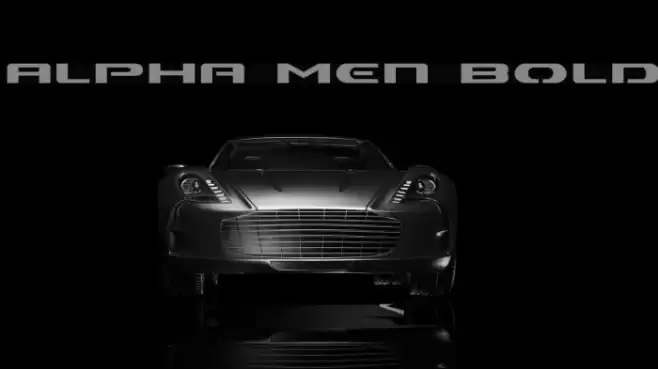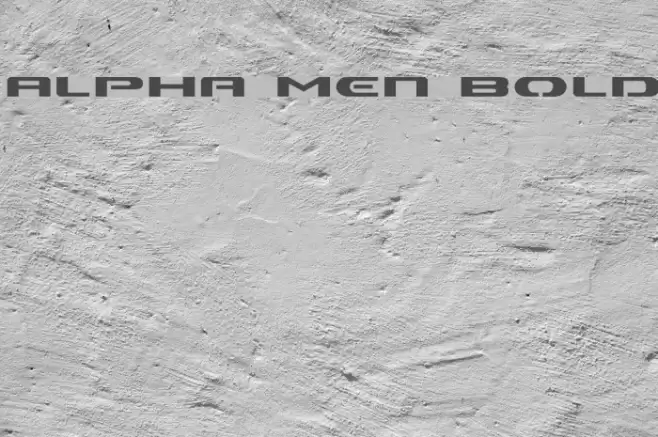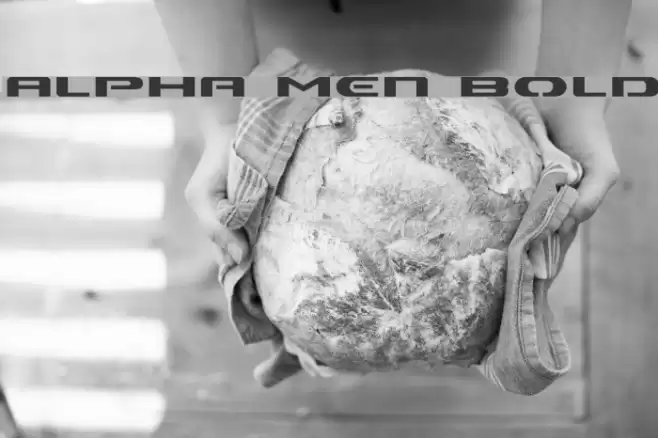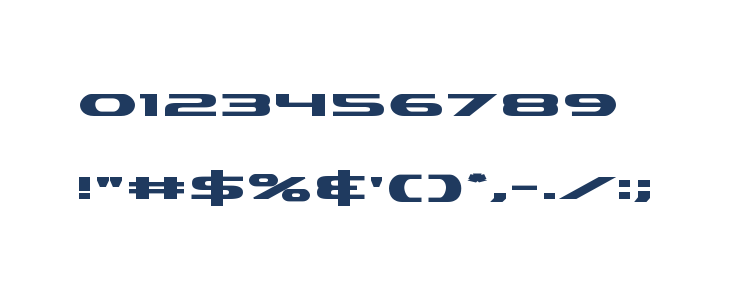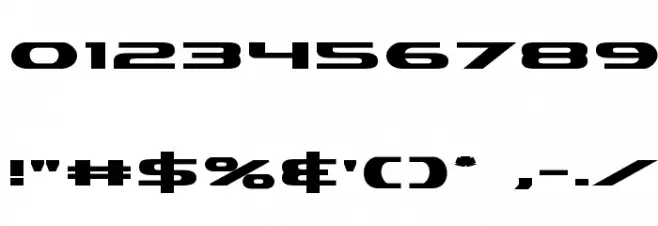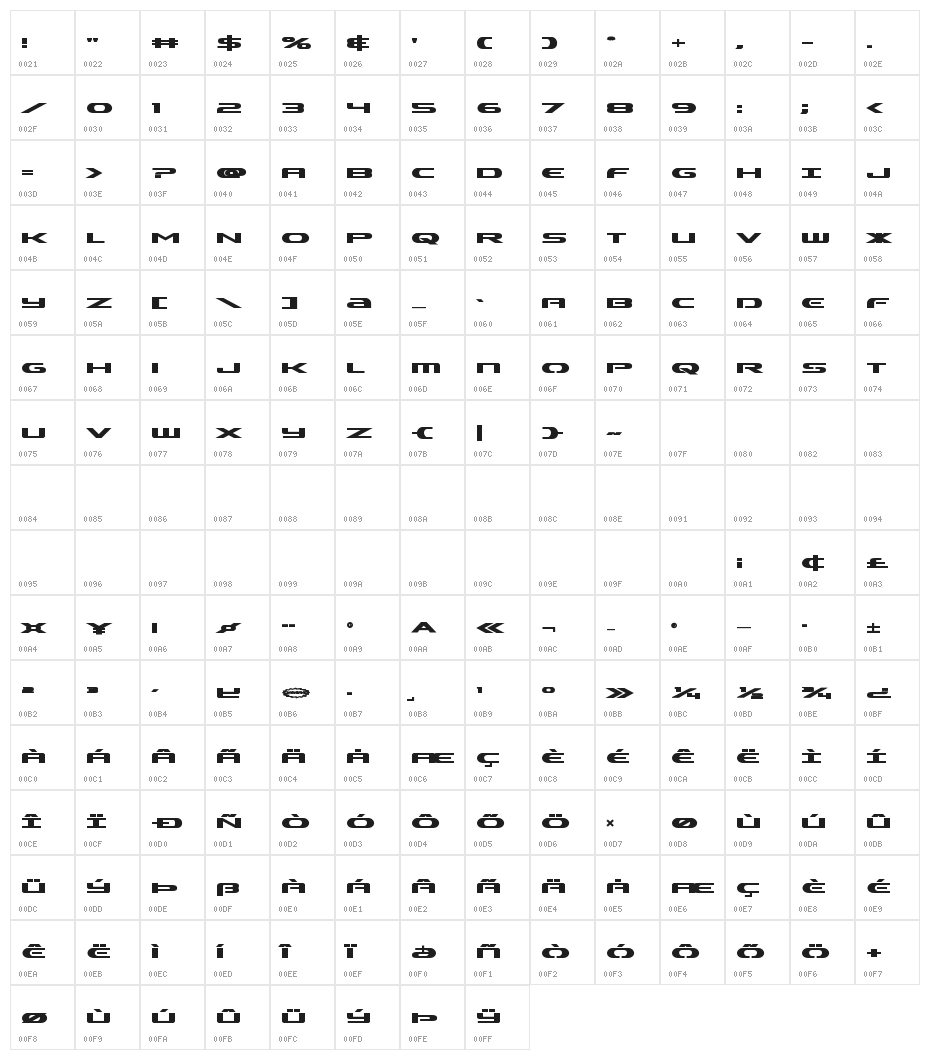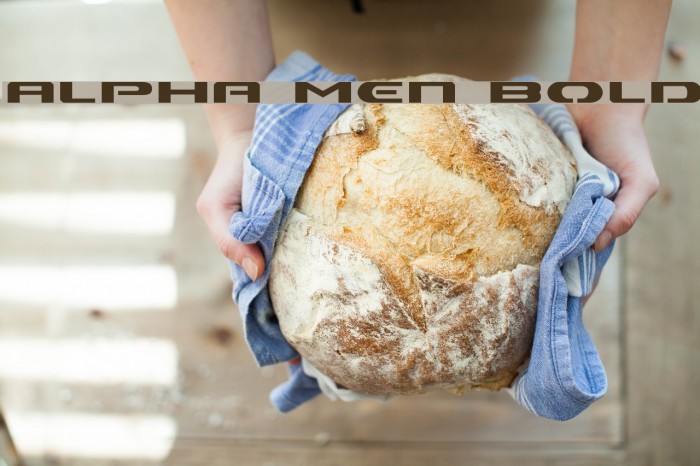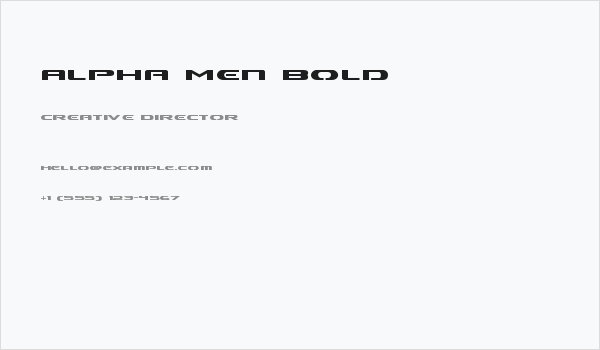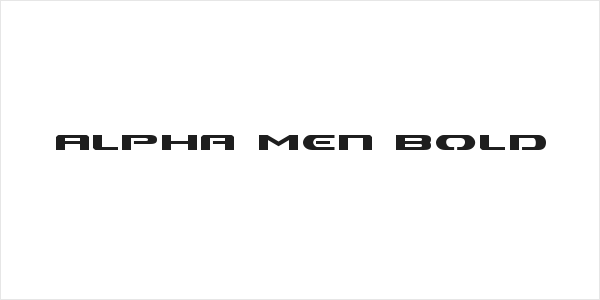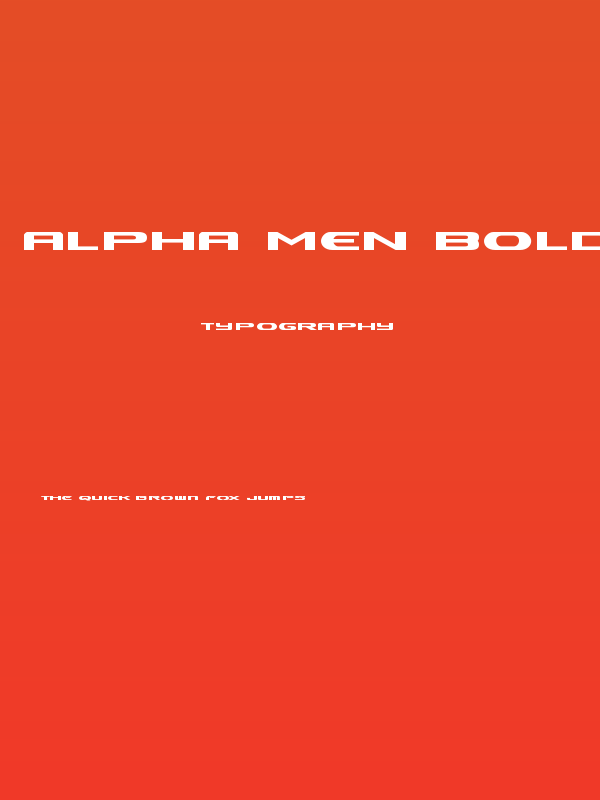
Alpha Men Bold Font
Alpha Men Bold Description
This font features a bold and futuristic design with a strong geometric influence. The characters are wide and have a distinct, angular appearance, giving them a modern and tech-inspired look. The uppercase letters are particularly striking, with sharp edges and a uniform thickness that creates a sense of power and stability. The lowercase letters maintain this boldness while offering a slightly more compact form. The numerals are consistent with the overall style, ensuring readability while maintaining the font's unique aesthetic. Special characters are designed to match the bold and angular theme, making them suitable for a variety of creative applications.
A bold, futuristic font with geometric and angular characteristics from Uncategorized fonts.
- Proposed Projects: Ideal for technology branding, sci-fi themed projects, video game titles, and modern advertising.
- Width: Expanded